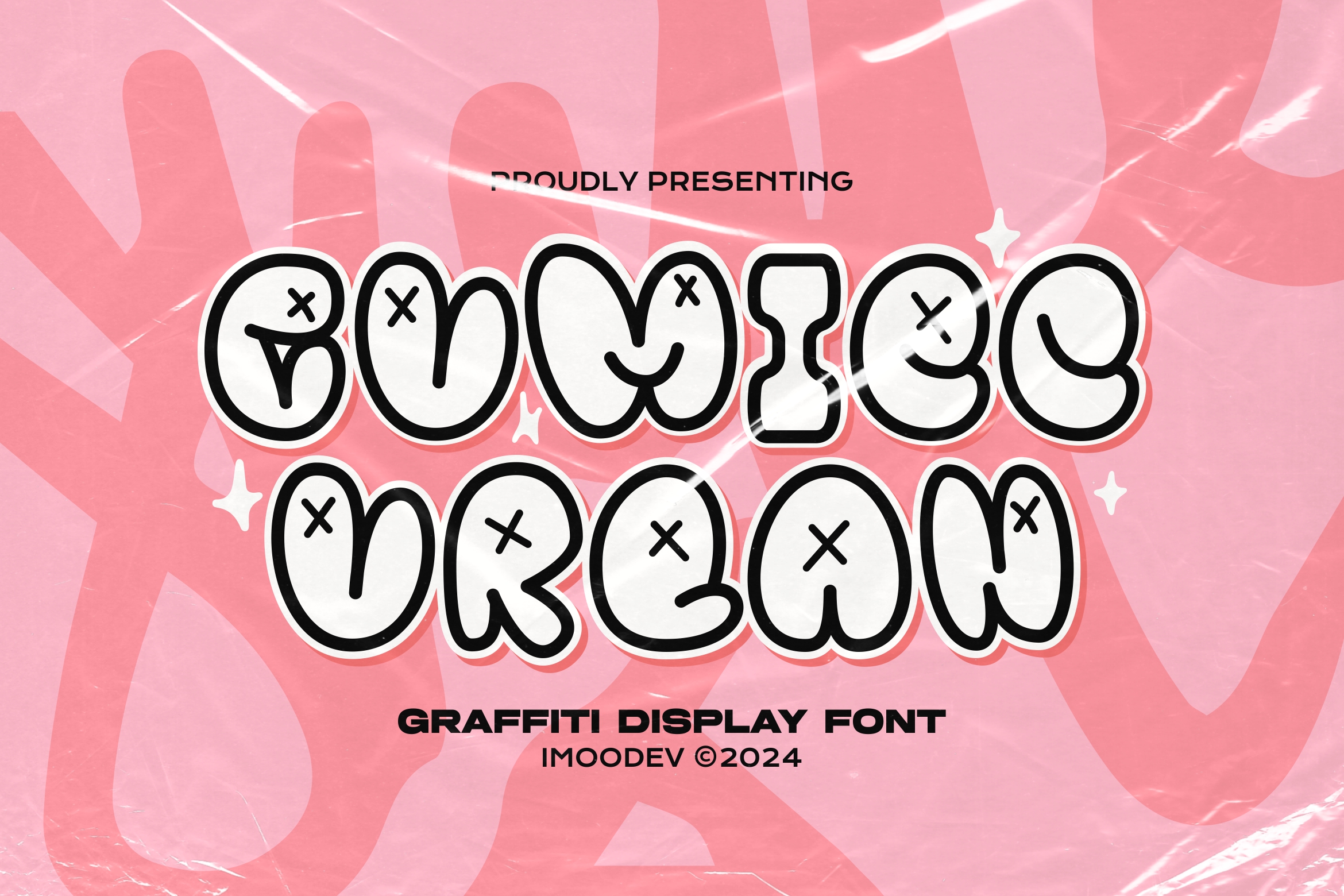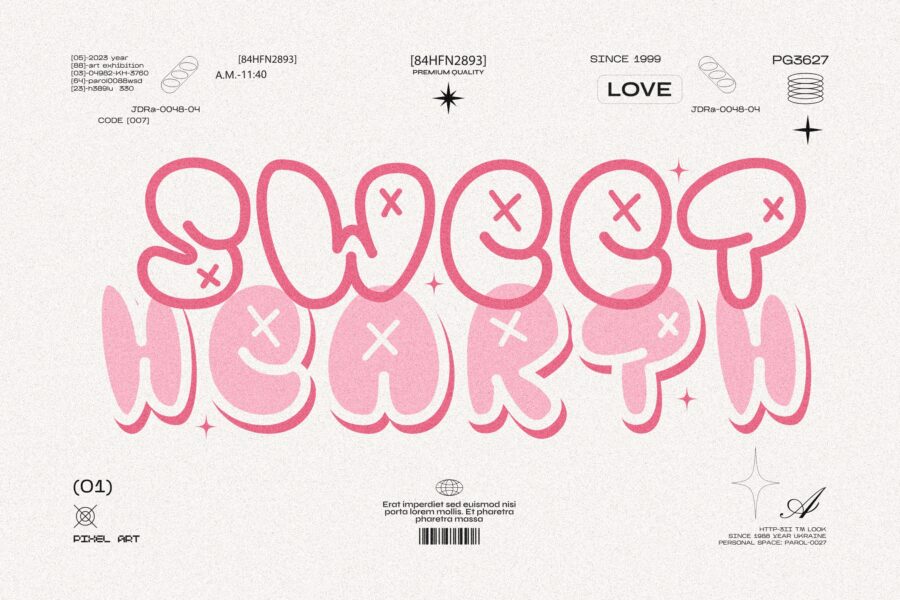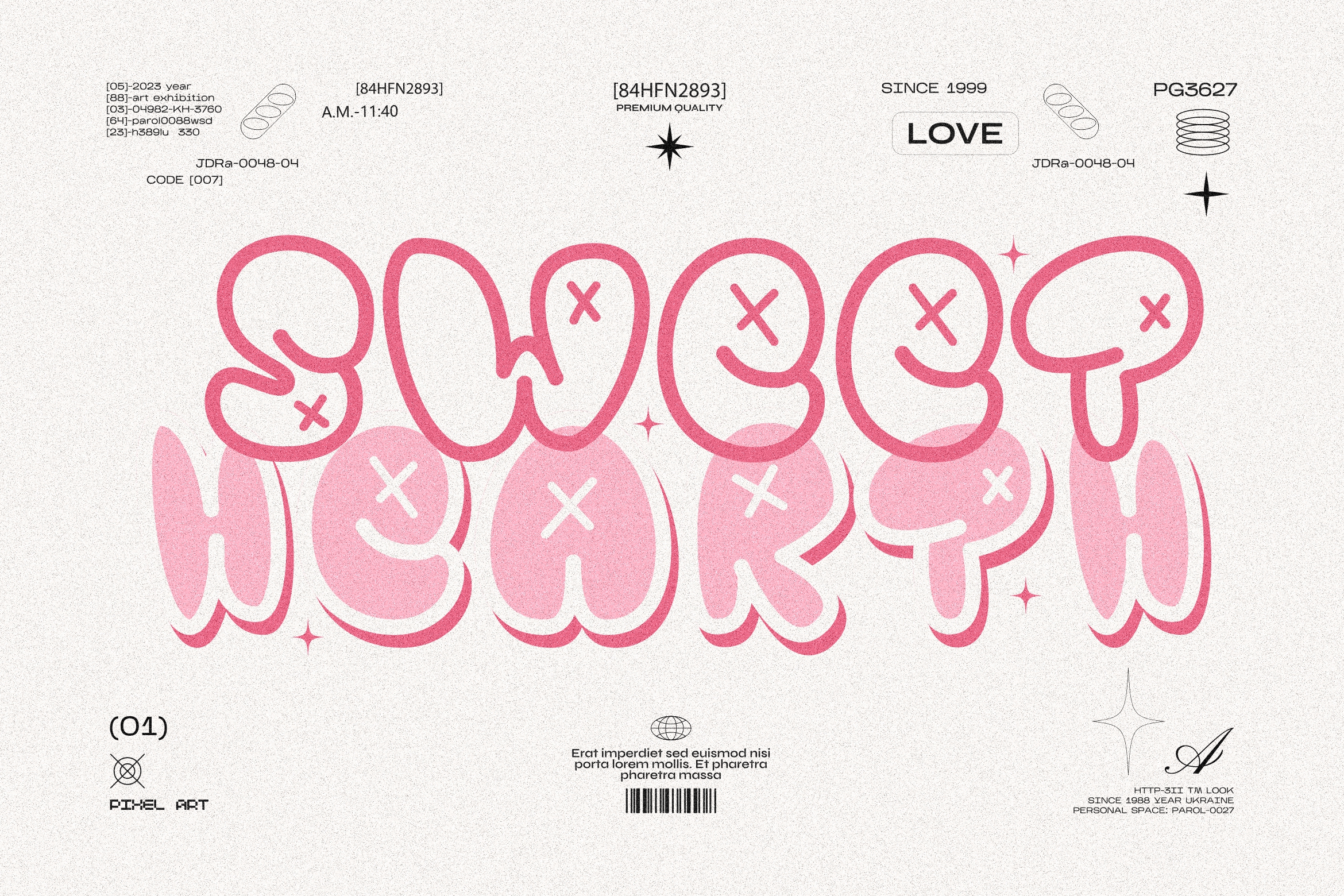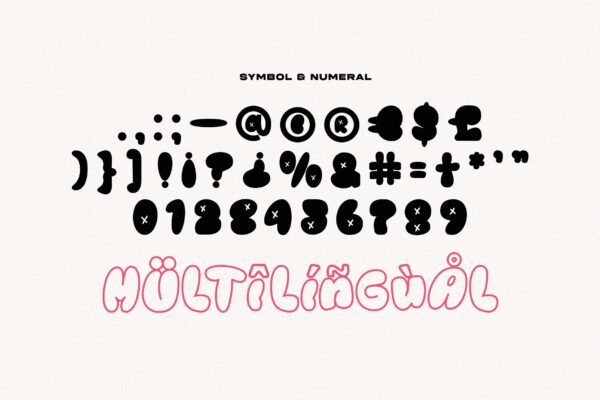
Gumiec Urban is a playful graffiti display font with bubbly shapes and a bold urban vibe. Its rounded letters and quirky “X” details bring a fresh street-art personality that makes every word look fun and full of character. Perfect for projects that need an energetic, youthful touch, this font embodies the mix of street culture and modern creative design, making it stand out in posters, apparel, branding, and digital content.
With Regular and Outline styles included, Gumiec Urban offers versatility for dynamic layouts. From skateboarding event flyers to Y2K-inspired fashion graphics, social media posts, and eye-catching product packaging, this font adapts seamlessly to playful and expressive designs. It also comes with numerals, symbols, and multilingual support, giving you complete creative freedom to elevate your street-style typography.
Gumiec Urban